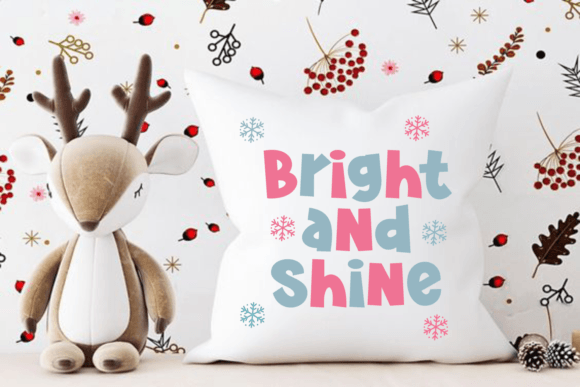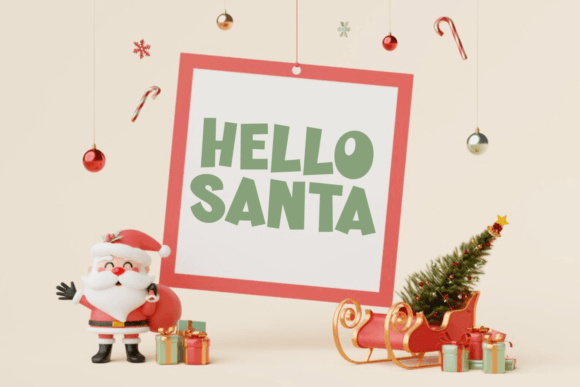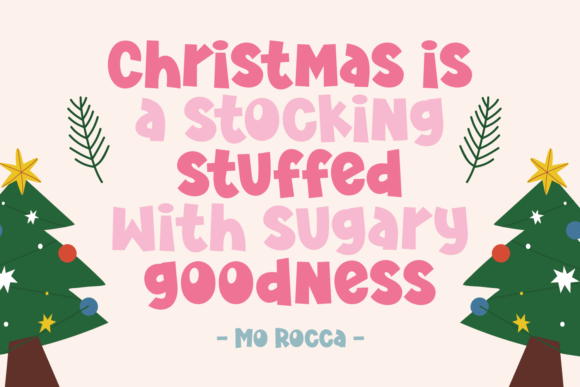
Introduction to Magic Cookies Font
Do you remember the moment when you first discovered the perfect font for your holiday design project? Maybe it was a free download from a design resource website, or perhaps it was a chance discovery in a high-quality font bundle. Whatever the case may be, we’re willing to bet that finding the right font can make all the difference in elevating your creative project to the next level. For designers looking to infuse their work with a touch of festive magic, the Magic Cookies Font is a game-changer.
With its bold and playful strokes, this whimsical handwritten typeface captures the essence of the holiday season, transporting your text to a world of wonder and enchantment. Whether you’re crafting a holiday banner, designing a set of gift tags, or creating a heartfelt greeting card, the Magic Cookies Font is the perfect design resource to add a sprinkle of holiday magic to your work.
Key Features of Magic Cookies Font
- Unique, whimsical design featuring magical cookies with a transparent background, ideal for creative projects.
- Supports a wide range of languages, making it a versatile design element for various creative projects.
- Perfect for adding a touch of magic and whimsy to branding materials, advertisements, and other creative projects.
Honest Review: Magic Cookies Font
As a designer, I’m always on the lookout for unique and high-quality design resources to enhance my creative projects. The Magic Cookies Font is one such resource that caught my attention.
- The Magic Cookies Font has a playful and whimsical feel to it, making it perfect for designs that require a touch of magic.
- The transparent background option allows for seamless integration with any design element.
- The font may not be suitable for formal or professional designs, as its playful nature may come across as unprofessional.
- The font is not as versatile as some other design resources, and may not be suitable for large-scale designs.
Overall, the Magic Cookies Font is a great addition to any designer’s toolkit, especially for creative projects that require a touch of magic. While it may have some limitations, its unique feel and free download option make it a worthwhile resource to have.
For the best results, use the Magic Cookies Font on a transparent background to create a clean and minimalist design. You can also experiment with different font sizes and styles to add visual interest to your creative project.
The Magic Cookies Font is ideal for use in food-related design projects, such as bakery logos, restaurant menus, or dessert packaging. You can also use the font in creative projects, such as invitations, greeting cards, or social media graphics.
What is the recommended usage for the Magic Cookies Font?
The Magic Cookies Font is a high-quality design resource that is suitable for a wide range of creative projects, including graphic design, digital art, and web design. It is particularly well-suited for projects that require a playful, whimsical, or magical feel. You can use the font for titles, headings, body text, or any other element that requires a unique and eye-catching typography.